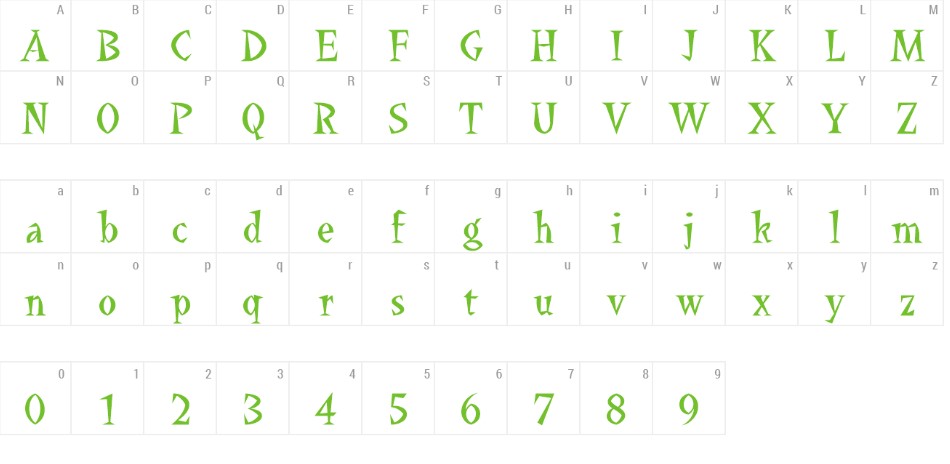
Hp-Thanh Trang Font
Hp-Thanh Trang Font falls beneath the category of handwritten fonts, this typeface is the proud member of the CSS family and used in google docs.
Style of Hp-Thanh Trang Font Free